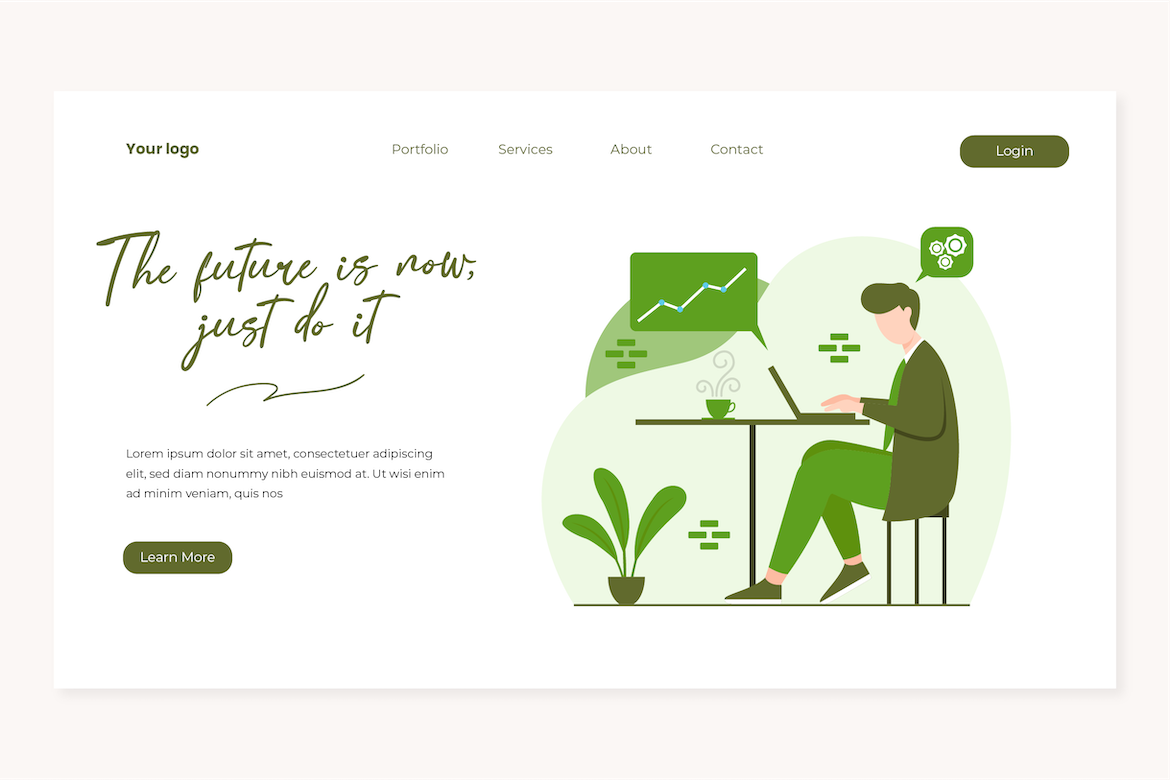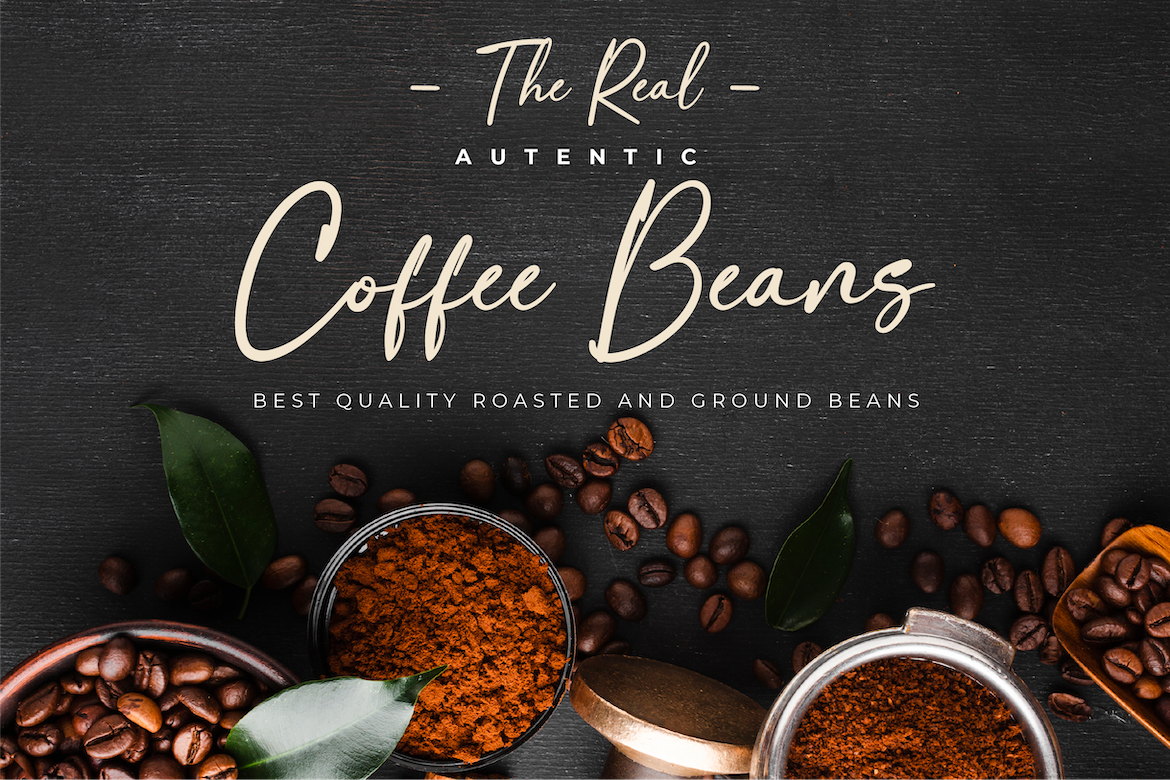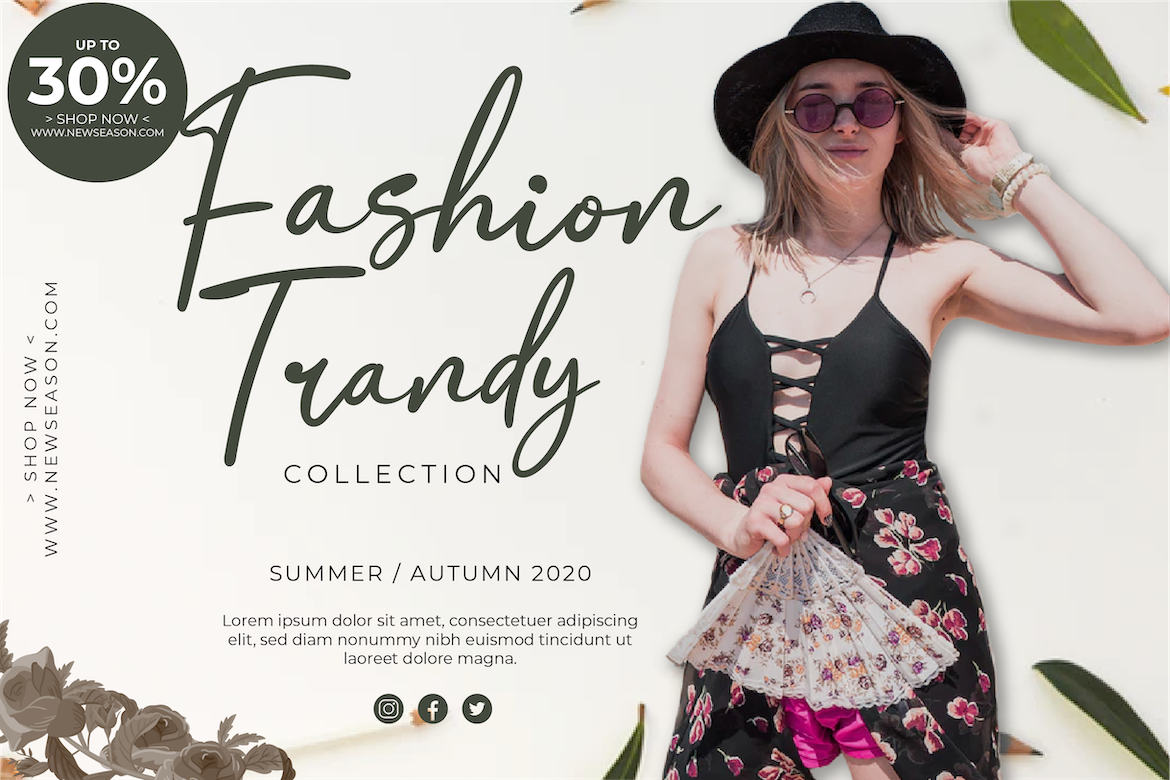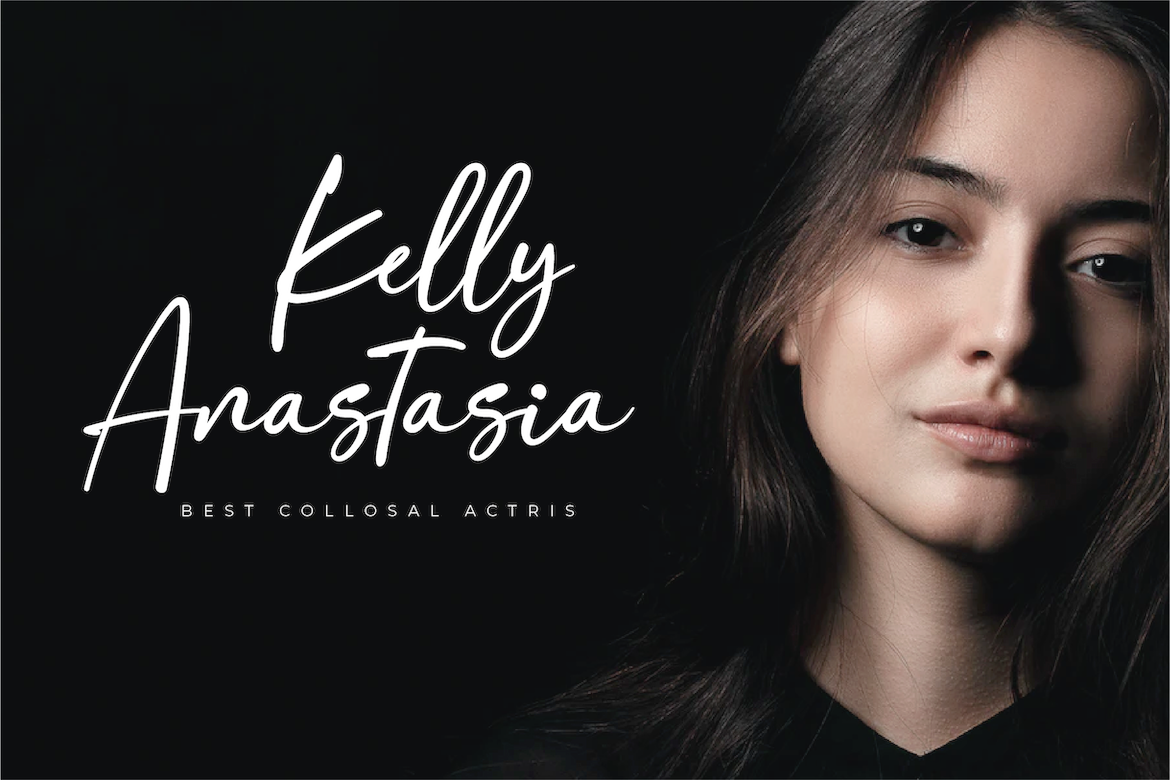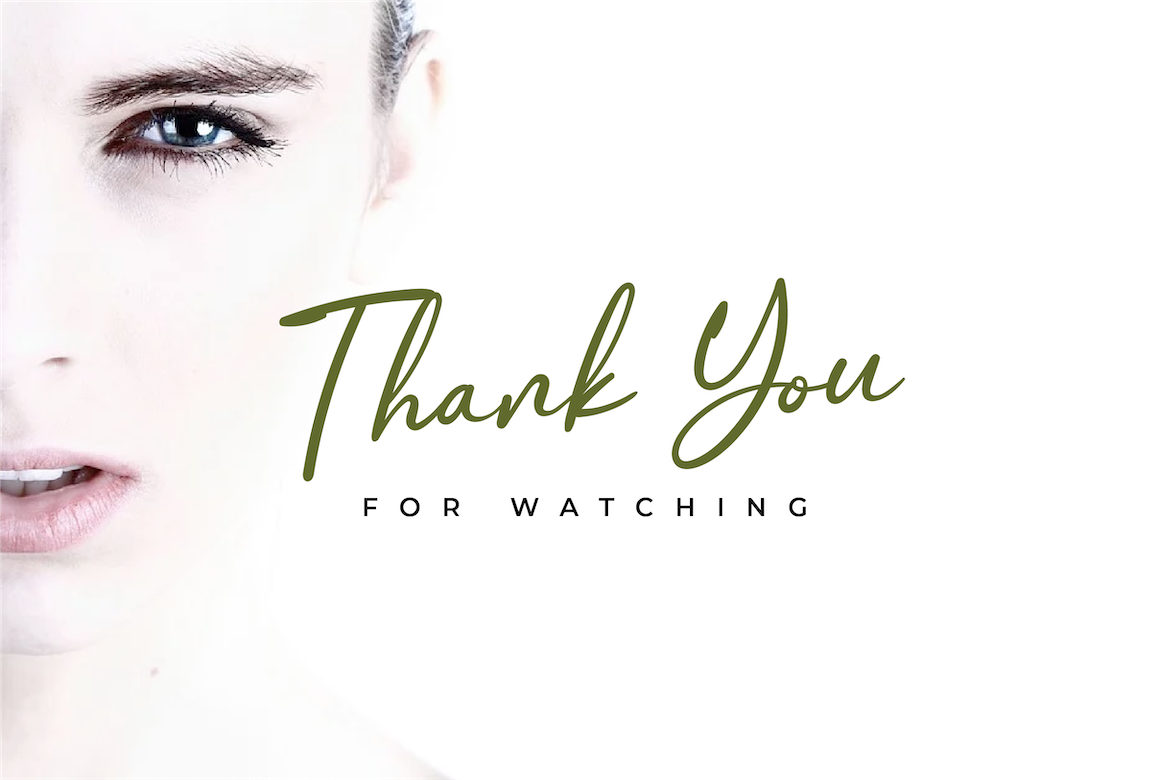
Raimont
Raimont is a relaxed, cute, and elegant signature font, making all your projects authoritative and elegant. whatever the project, Raimont is the font
This font is designed with a natural touch of handwriting which is refined to create a portion and composition that suits your needs. So this font is suitable for craft, children’s writing, adventure posters, food banner titles, wedding invitations, product packaging logos, quotes, social media page covers, furniture banner headlines, book covers, and much more.